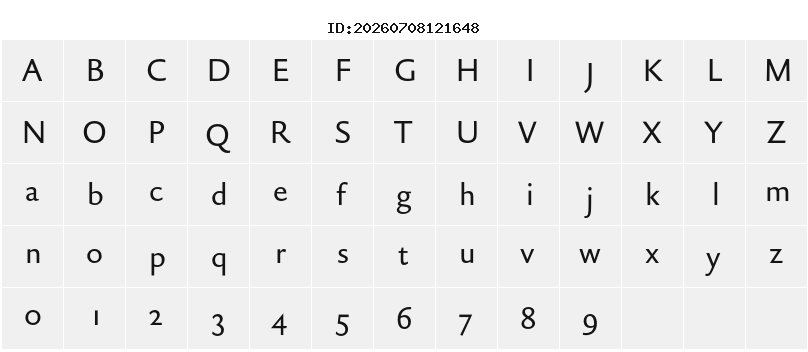
DTLHaarlemmerSansSD Preview
About DTLHaarlemmerSansSD.otf
DTLHaarlemmerSansSD.otf is a modern, elegant sans-serif font designed for ultimate readability and visual harmony. Perfect for branding, headlines, web design, and print materials.